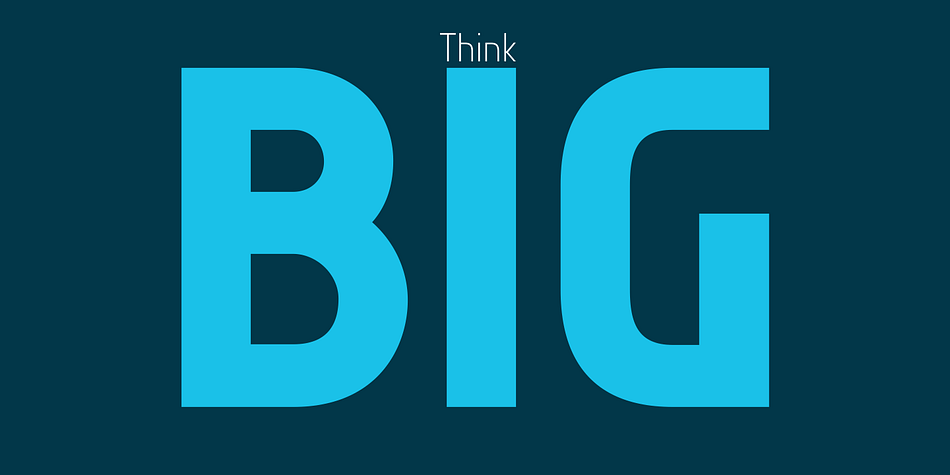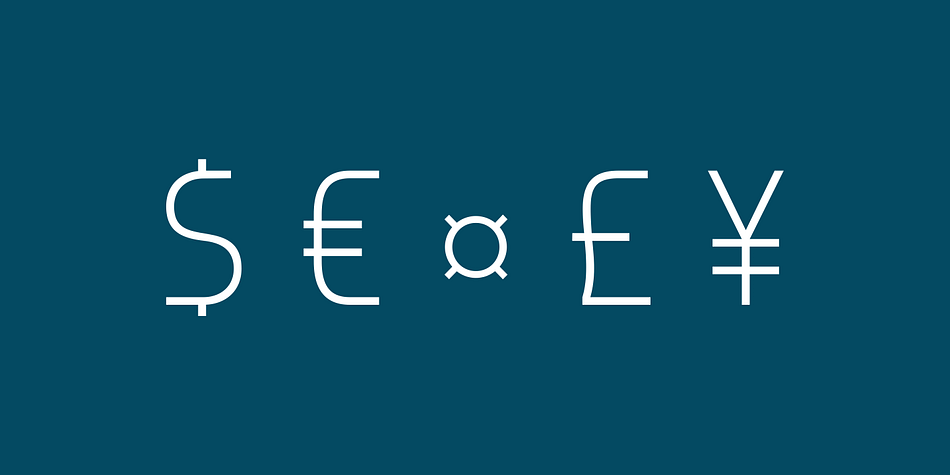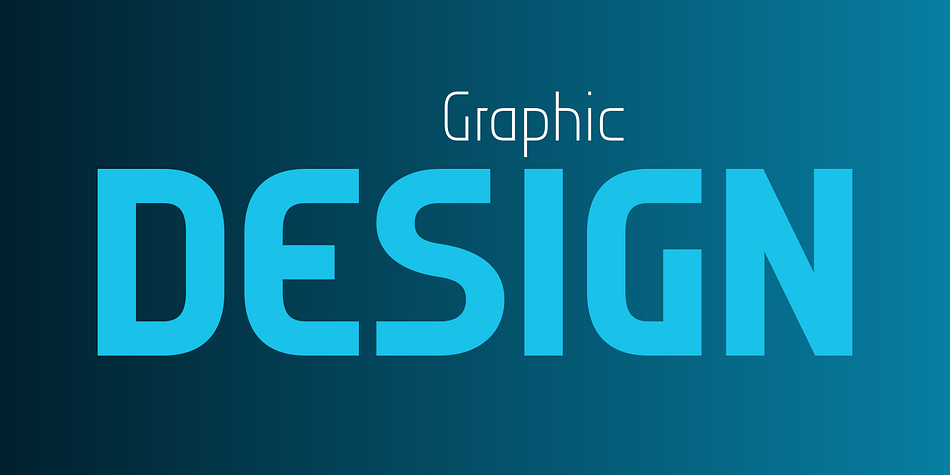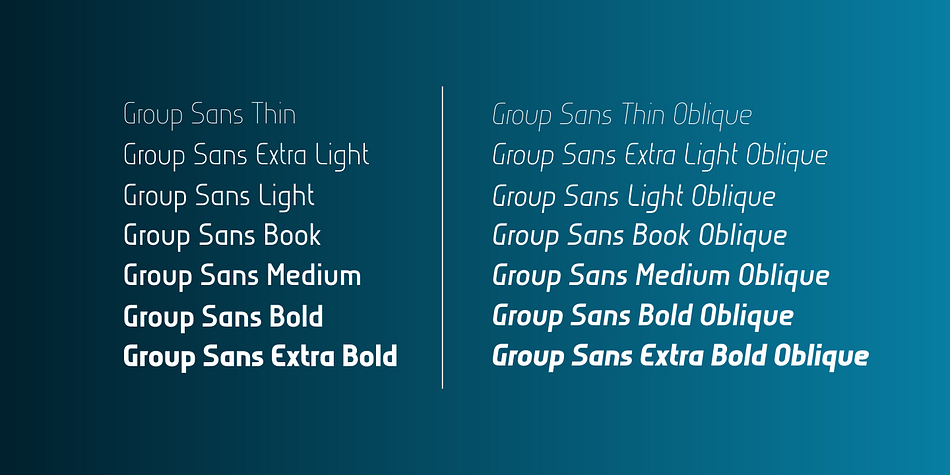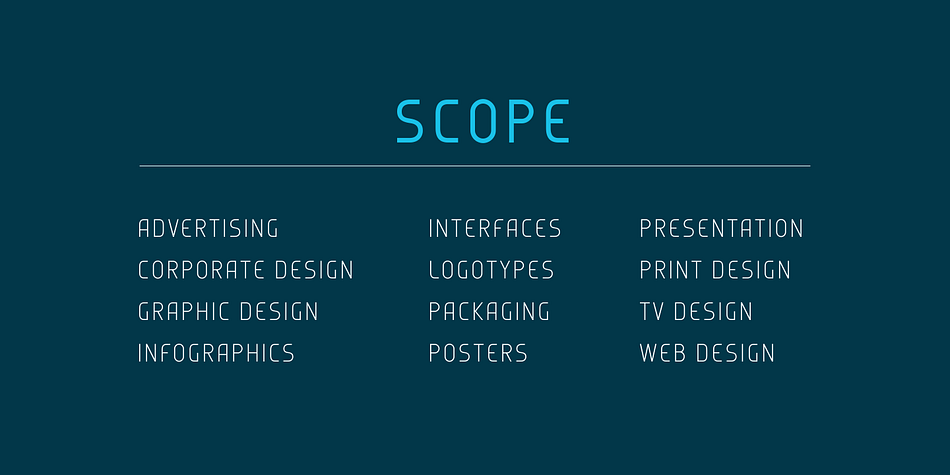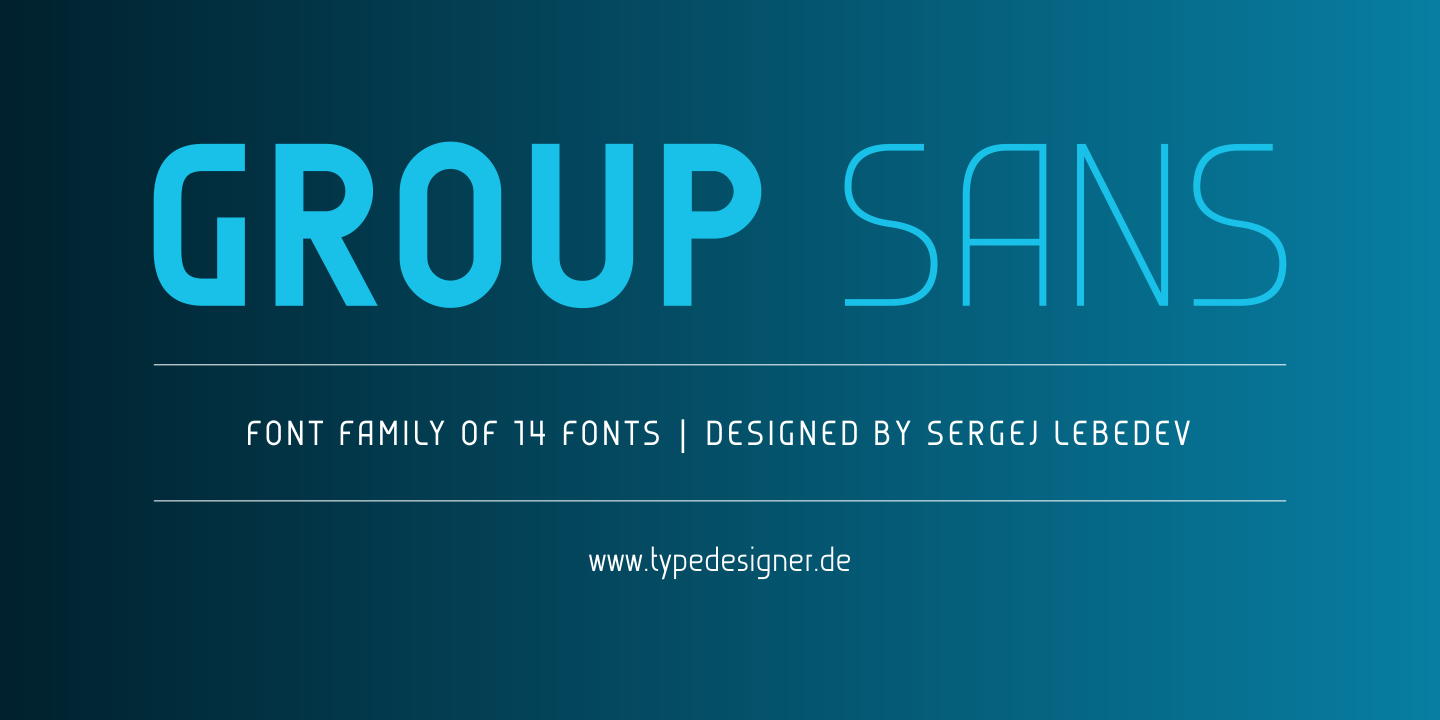
, Group Sans is a sans serif font family. This typeface has fourteen styles and was published by Sergej Lebedev.
The Group Sans is a font family of 14 fonts and was designed by the German type designer Sergej Lebedev. Group Sans is а modern sans serif with a distinctive character and geometric form language. The family has seven weights, ranging from Thin to Extra Bold, with corresponding obliques. This font family is suited for advertising, corporate design, packaging, editorial and branding usage. Group Sans is optimized for print and screen publishing and has many OpenType Futures.
Foundry | Sergej Lebedev |
Designer | Sergej Lebedev |